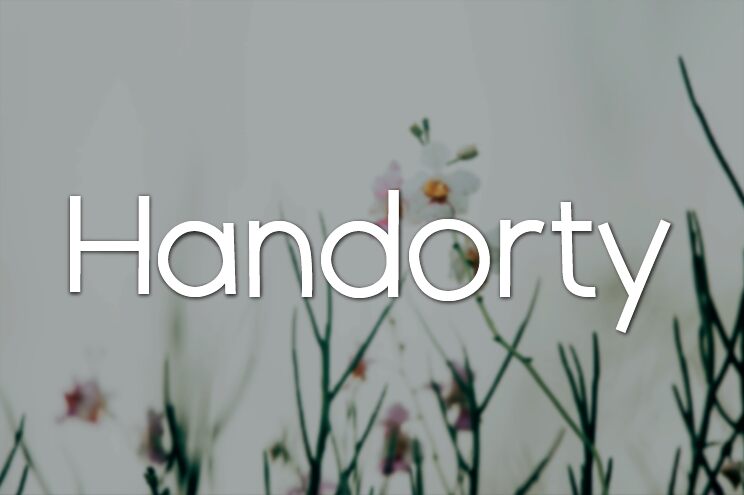
Handorty font by HannaBie Creative Studio is a free sans serif font that turns every word into a sleek, modular wordmark. Its round, almost bubble-like counters and tall, straight stems create a smooth, continuous rhythm, while the tight spacing pulls letters together into compact, graphic blocks. The result feels modern and polished, with just enough personality to stand out without getting loud.
Using Handorty in bold titles or oversized labels gives layouts a clean, design-forward edge that still feels friendly. This free font works beautifully for branding, minimalist logos, fashion tags, packaging, posters, and social media graphics where you want crisp geometry with a soft touch. For longer text, pair Handorty headlines with a simple, neutral sans in a smaller size to keep everything readable and cohesive.